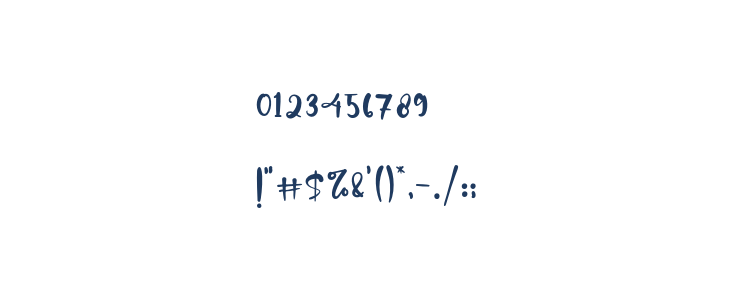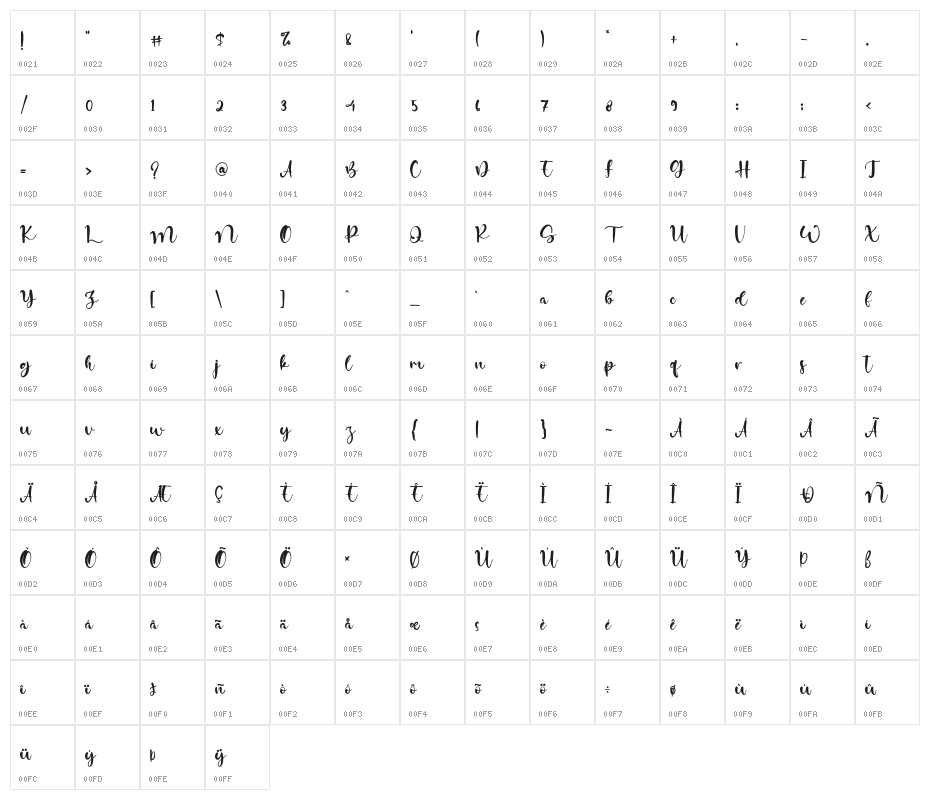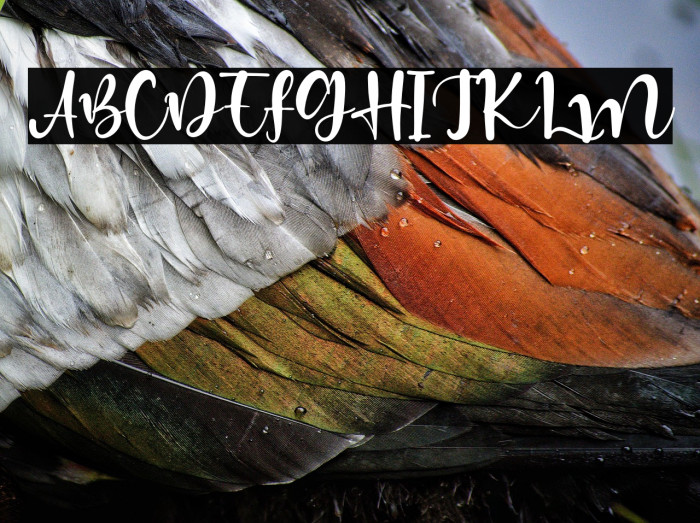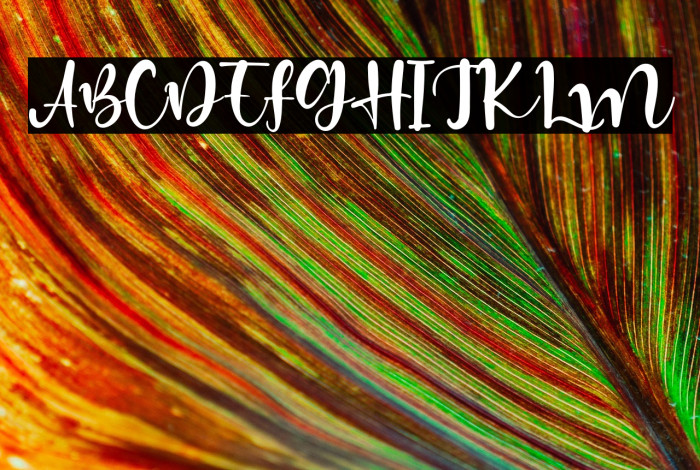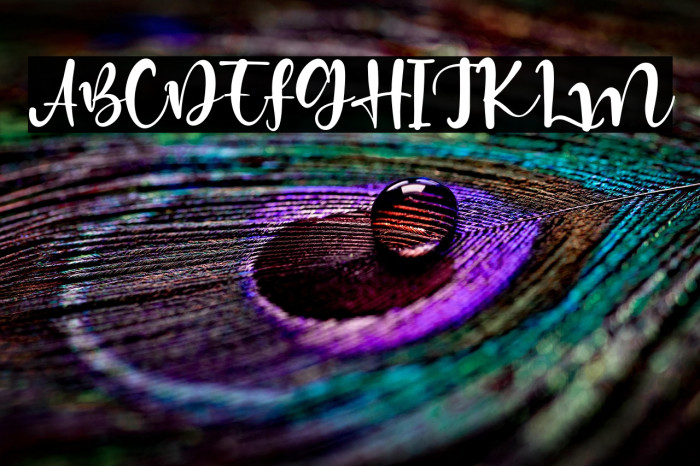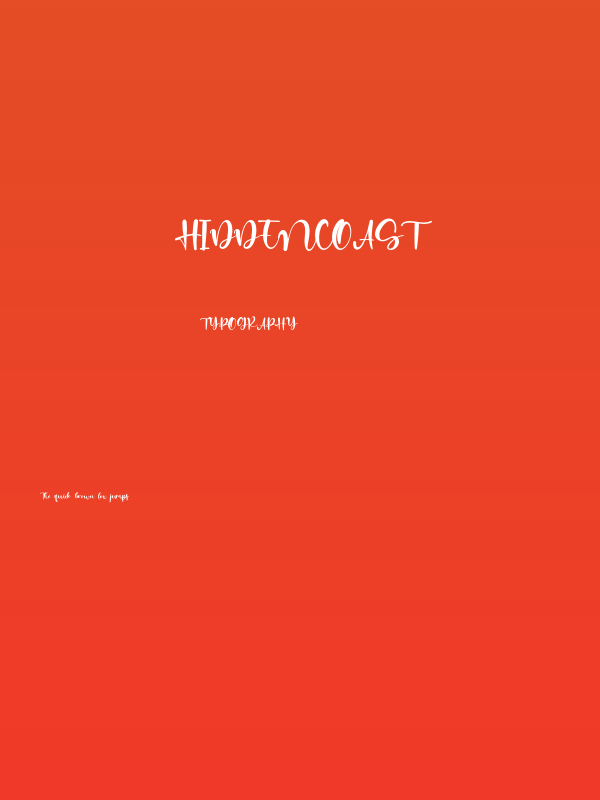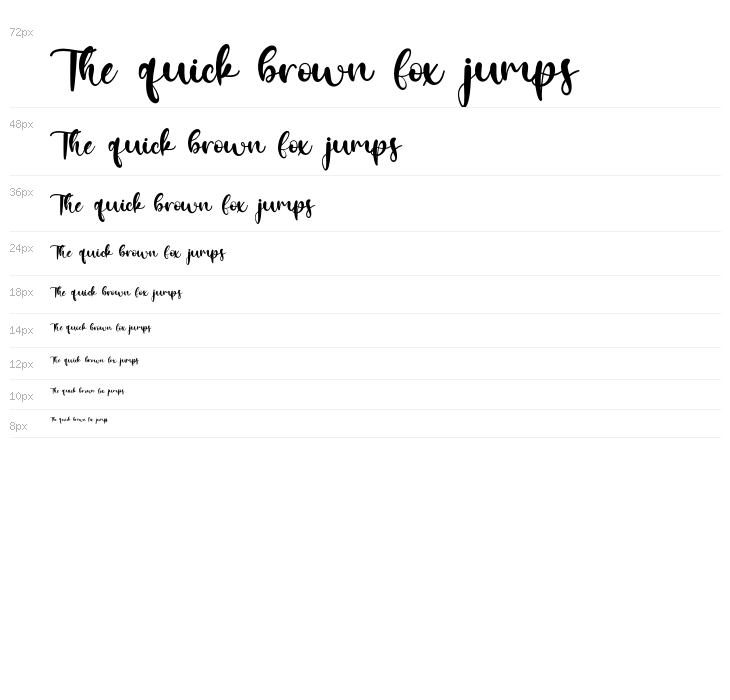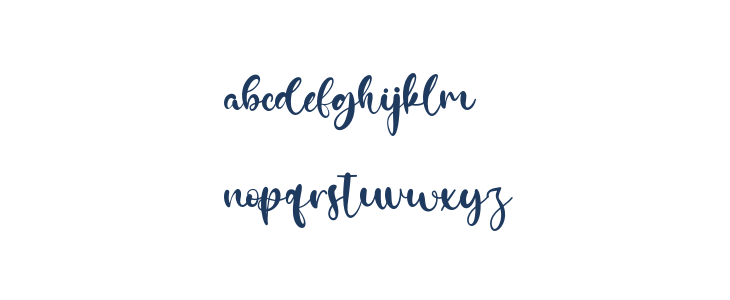
HiddenCoast Font
HiddenCoast Description
This font exudes a playful and artistic flair, characterized by its flowing, cursive style. The letters are interconnected with smooth, sweeping strokes that give it a handwritten appearance. The uppercase letters are bold and prominent, while the lowercase letters maintain a consistent flow, enhancing readability. The numbers and special characters are crafted with the same attention to detail, ensuring uniformity across the font. Its whimsical nature makes it ideal for creative projects that require a personal touch. The overall design is both elegant and approachable, making it suitable for a variety of applications.
| Use Case | Logos, Invitations, Social Media |
| Proposed Projects | Ideal for wedding invitations, greeting cards, branding, and social media graphics. |